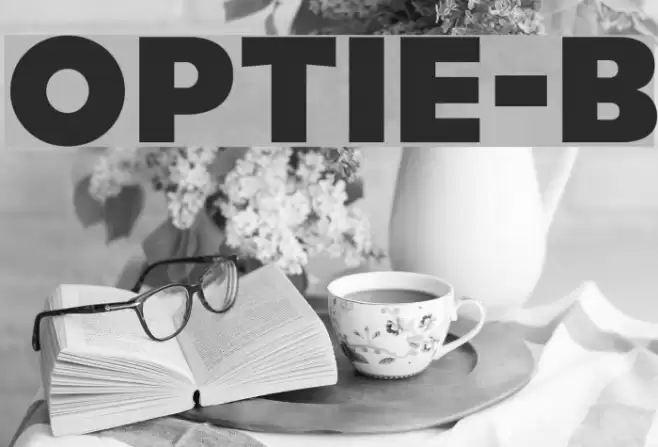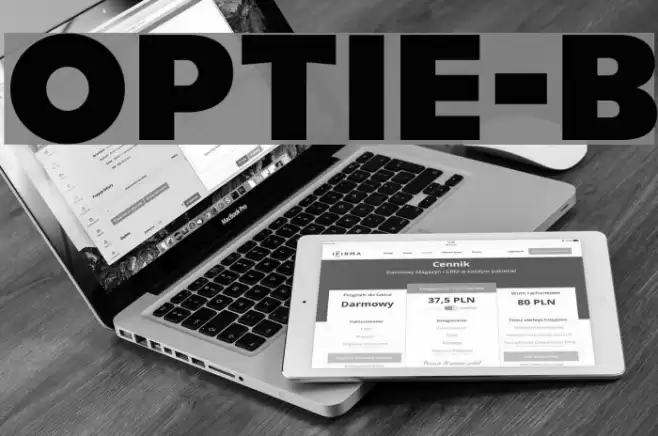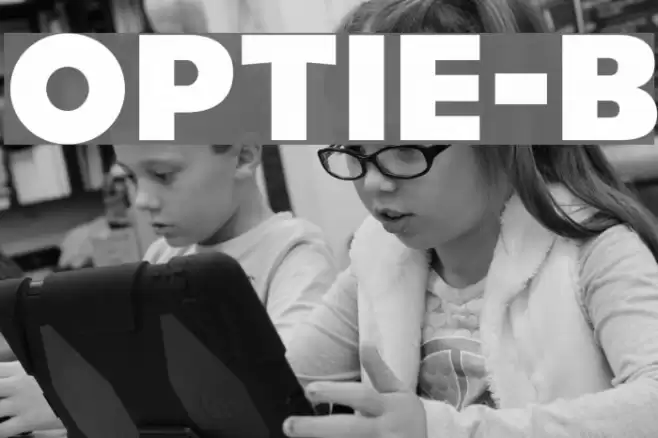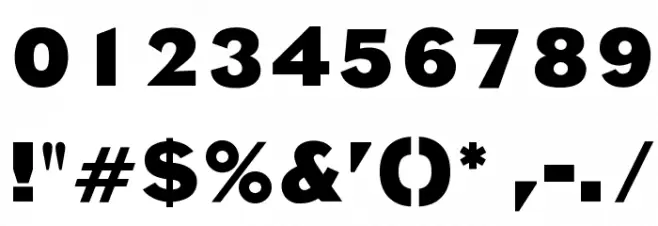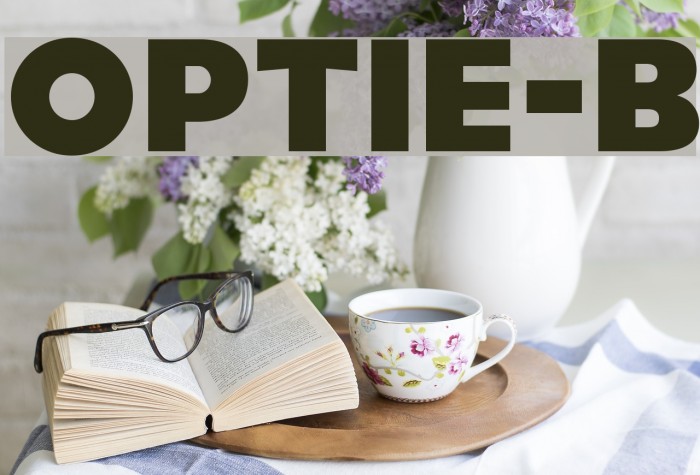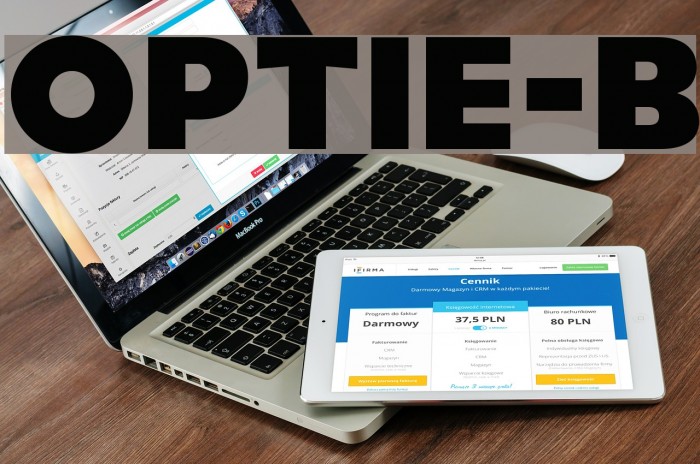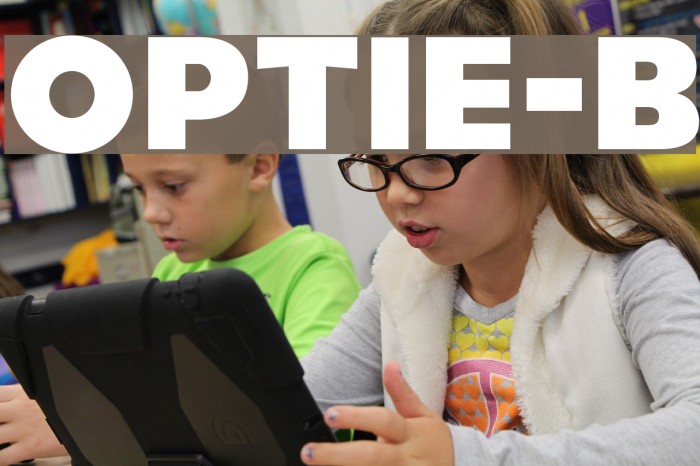
OPTIEagle-Bold Font
OPTIEagle-Bold Description
This font features bold, geometric letterforms with a strong presence. The characters are constructed with thick strokes and sharp angles, creating a sense of stability and impact. The uppercase letters are particularly striking, with a uniform height and width that contribute to a cohesive appearance. The numerals and special characters maintain the same boldness, ensuring consistency across all elements. The overall design is modern and assertive, making it suitable for applications where attention-grabbing text is required.
A bold, geometric font with strong, impactful letterforms from Uncategorized fonts.
- Proposed Projects: Ideal for branding, posters, headlines, and any design requiring a bold statement.